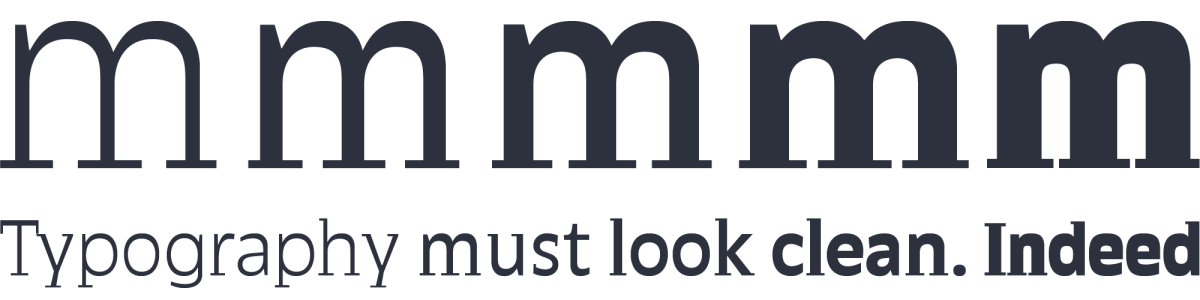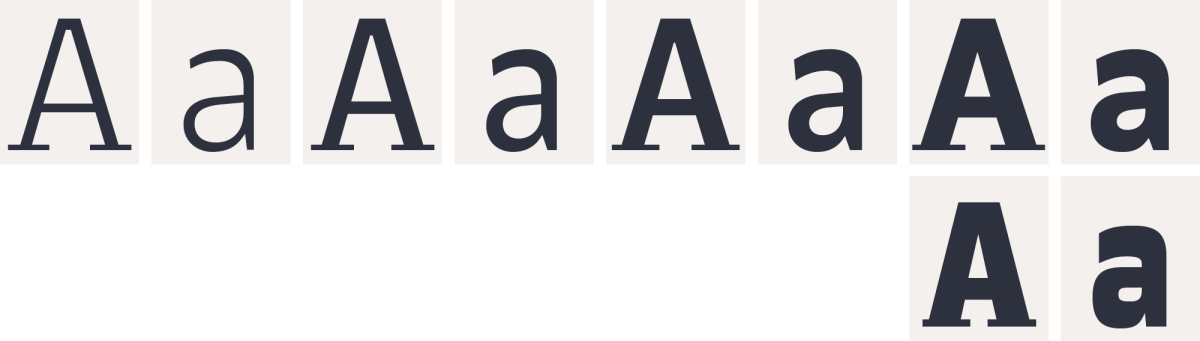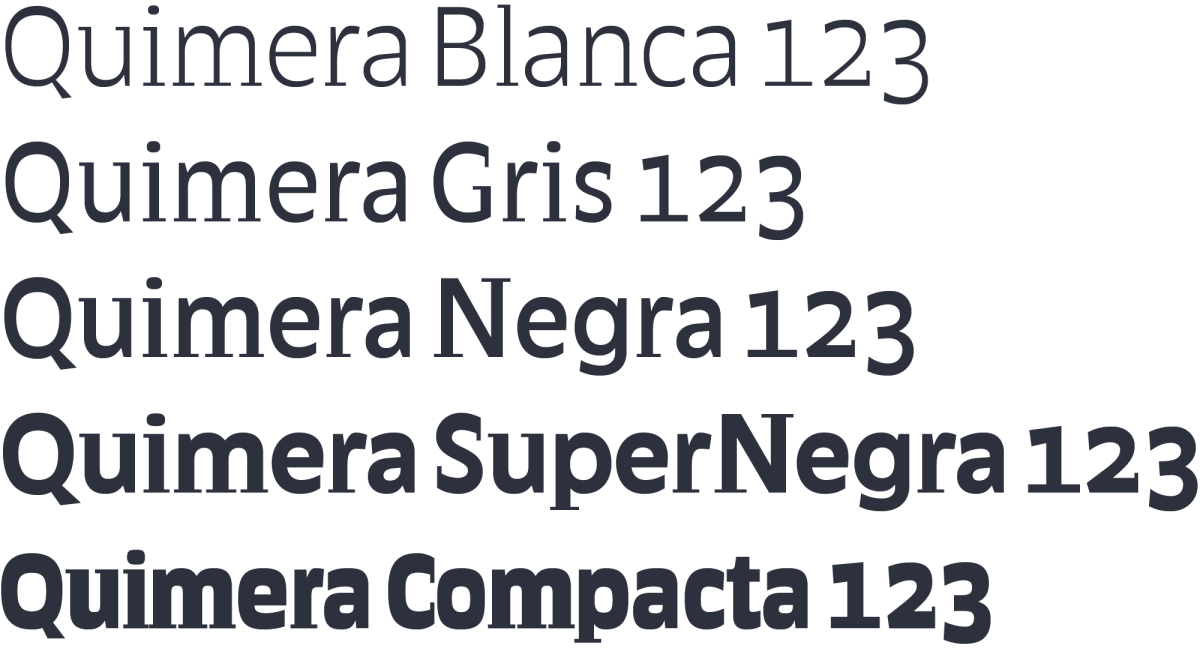
Quimera. A sanserif ‘avec’!
Quimera is a natural consequence of our admiration for the work of French designer Roger Excoffon, specially for his (in)famous type Antique Olive, published in 1962. However Quimera has its own personality. Its simple anatomy, open counters, and unique thin serifs make it very legible in small text bodies, both printed and on screen.
Horizontal stress and delicate serifs
Reverse contrast typefaces contradict the traditional calligraphic modulation in typography, that is, thicker vertical strokes and thinner horizontal strokes. They give wordshapes a horizontal stress. Characters tend to be generous in width and with open counterforms, all of which performs better in small bodies and in screen reading. Despite its reverse contrast, Quimera has a delicate character. Although its stroke modulation is similar to that of a sanserif, its characters carry a very thin, capricious serif. This genetic contradiction is reflected in its name, as if it were a ‘sanserif avec’. Base serifs help to keep the visual continuity of words along the text line and while this can help the eyes of the reader, it also allows for a reduction of the leading space, in comparison with a sanserif type.
Figures slightly taller
How uppercases, lowercases, and figures relate to each other in type design is always matter for personal opinions. Quimera’s figures are slightly higher than lowercases’ x-height. Considering that Indo Arabic numbers constitue a group of signs of diverse origin in respect to the Latin alphabet, we decided to emphasize that difference. Some researchers claim we read figures in a very different manner than words. Therefore a slightly larger x-height seemed appropriate to help us distinguishing ‘figures images’ from word-images.
Small family
Quimera has only five fonts: a roman declined in four weights, plus a compact extra-black version for space-saving settings. This typeface is being seriously extended. Stay tuned!